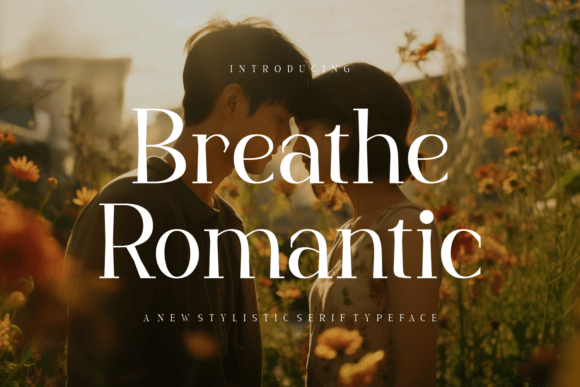
Breathe Romantic Font: Elevate Your Designs with Elegance and Emotion
In the world of typography, few fonts capture the essence of romance and elegance as beautifully as Breathe Romantic. This soft, stylish serif font is meticulously crafted for moments that matter, bringing warmth and personality to a wide range of design projects. Whether you’re a designer, craftsperson, or DIY enthusiast, Breathe Romantic is an excellent choice for adding a touch of luxury and sophistication to your work.
The Essence of Breathe Romantic
Breathe Romantic is characterized by its romantic curves and expressive letterforms, which infuse any design with a sense of warmth and emotion. The font’s subtle elegance and gentle flair make it perfect for projects that require a delicate touch, such as wedding invitations, love quotes, and branding for feminine businesses. The result is a design that is not only visually stunning but also emotionally resonant.
Breathe Romantic’s versatility makes it an excellent choice for a wide range of design projects. Some of the most popular uses for this font include:
- Wedding Invitations: Add a touch of romance and elegance to your wedding invitations, save-the-dates, and other wedding-related designs.
- Love Quotes: Create beautiful, shareable graphics featuring your favorite love quotes, perfect for social media or personal gifts.
- Feminine Branding: Elevate your brand with a sophisticated, feminine font that speaks to your target audience.
- Lifestyle Blogs: Add a personal touch to your blog with a beautiful, elegant font that reflects your unique voice and style.
- Boutique Product Packaging: Stand out in a crowded market with luxurious, eye-catching packaging that showcases your brand’s personality.
What Makes Breathe Romantic Special?
Breathe Romantic offers a range of features that make it an exceptional font for designers and craftspersons. Some of the key features include:
- Uppercase and Lowercase Letters: The font includes both uppercase and lowercase letters, allowing you to create a wide range of designs.
- Alternate Characters: Add variety to your designs with alternate characters that offer different stylings and flair.
- Multi-Language Support: The font supports multiple languages, making it perfect for designers working on international projects.
Why Choose Breathe Romantic?
With so many fonts available, why choose Breathe Romantic? Here are just a few reasons why this font stands out:
- Unique and Memorable: Breathe Romantic is a one-of-a-kind font that will help your designs stand out from the crowd.
- Elegant and Sophisticated: The font’s subtle elegance and gentle flair make it perfect for designs that require a touch of luxury.
- Emotionally Resonant: Breathe Romantic is designed to evoke emotions, making it perfect for projects that require a personal touch.
Get Creative with Breathe Romantic
Whether you’re a seasoned designer or a craftsperson looking to add a personal touch to your projects, Breathe Romantic is the perfect choice. With its elegant curves, expressive letterforms, and versatile features, this font is sure to become a staple in your design toolkit.